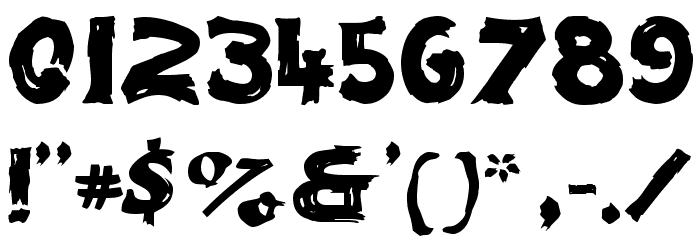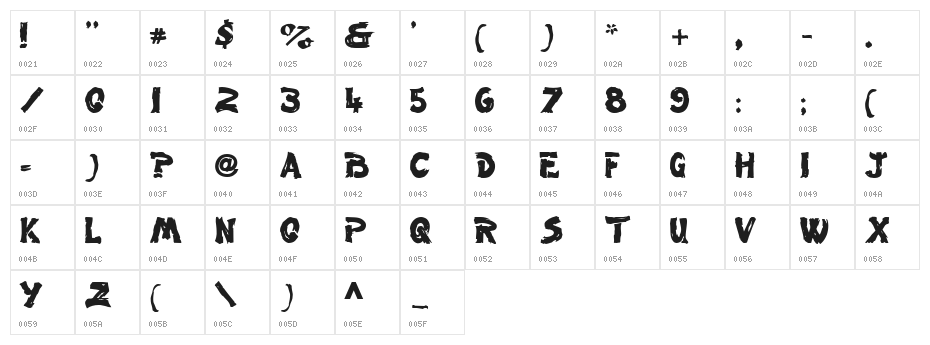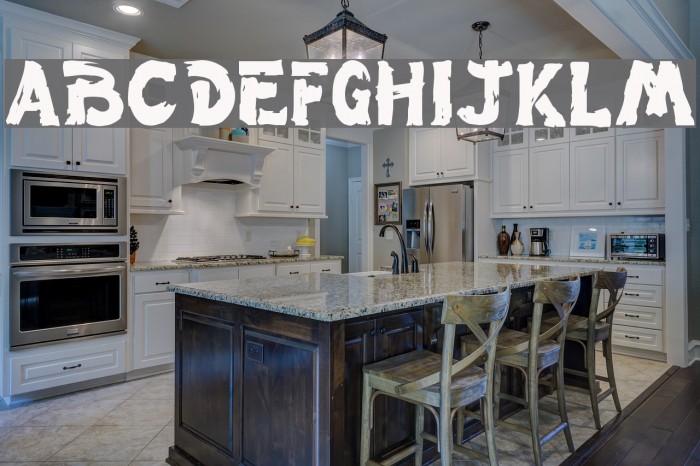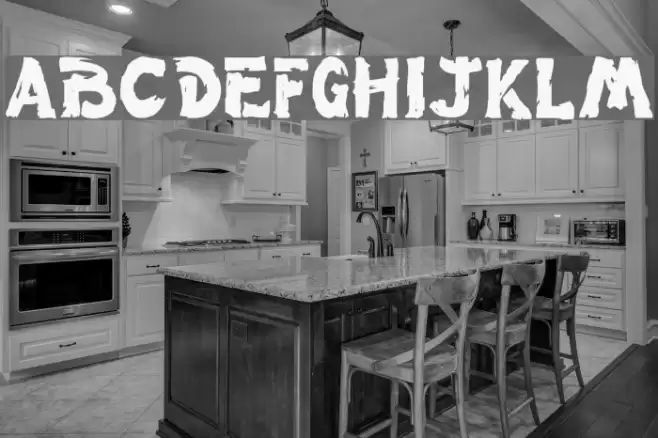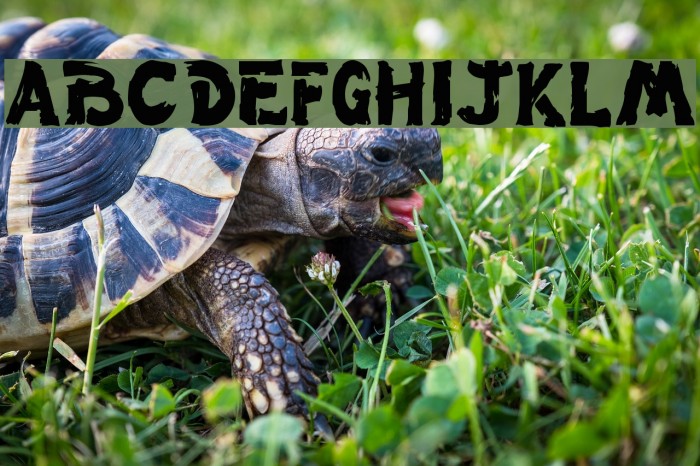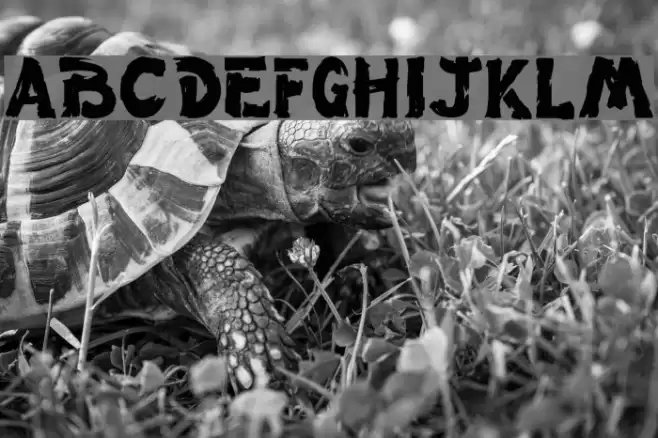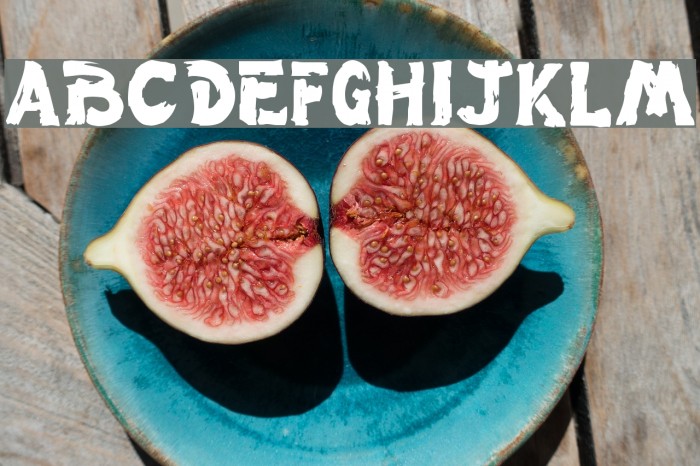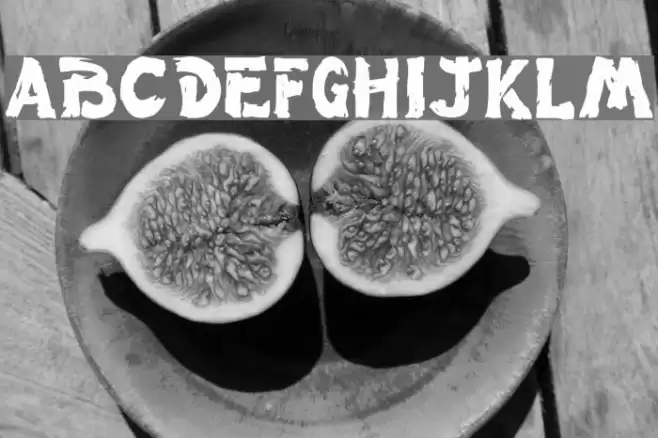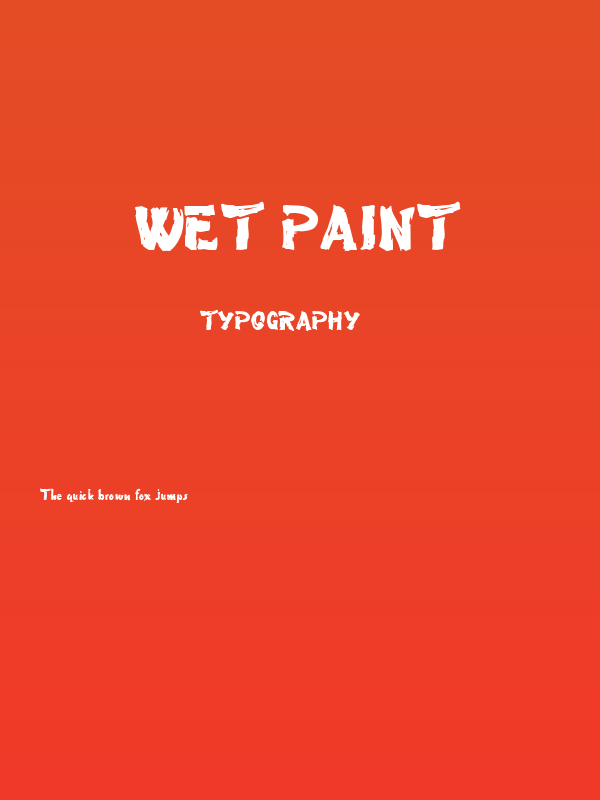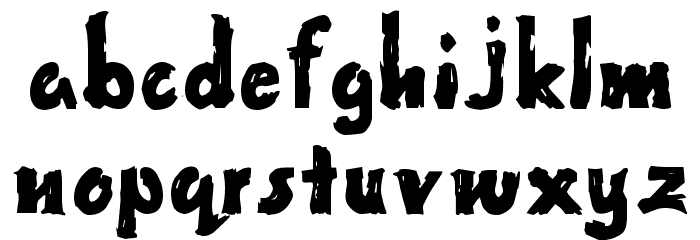
Wet Paint Font
Wet Paint Description
This font exudes a bold and expressive style, reminiscent of brush strokes or paint splatters. Each character is uniquely crafted with irregular edges and varying thickness, giving it a dynamic and artistic appearance. The uppercase letters are robust and commanding, while the lowercase letters maintain the same energetic flair. Numbers and special characters follow suit, ensuring consistency across the typeface. The overall look is both rugged and creative, making it ideal for projects that require a strong visual impact. Its hand-painted aesthetic is perfect for conveying a sense of creativity and spontaneity.
| Overall Style | Artistic, Expressive |
| Use Case | Headlines, Posters, Artistic Designs |
| Proposed Projects | Ideal for art projects, posters, album covers, and any design needing a creative, hand-painted look. |